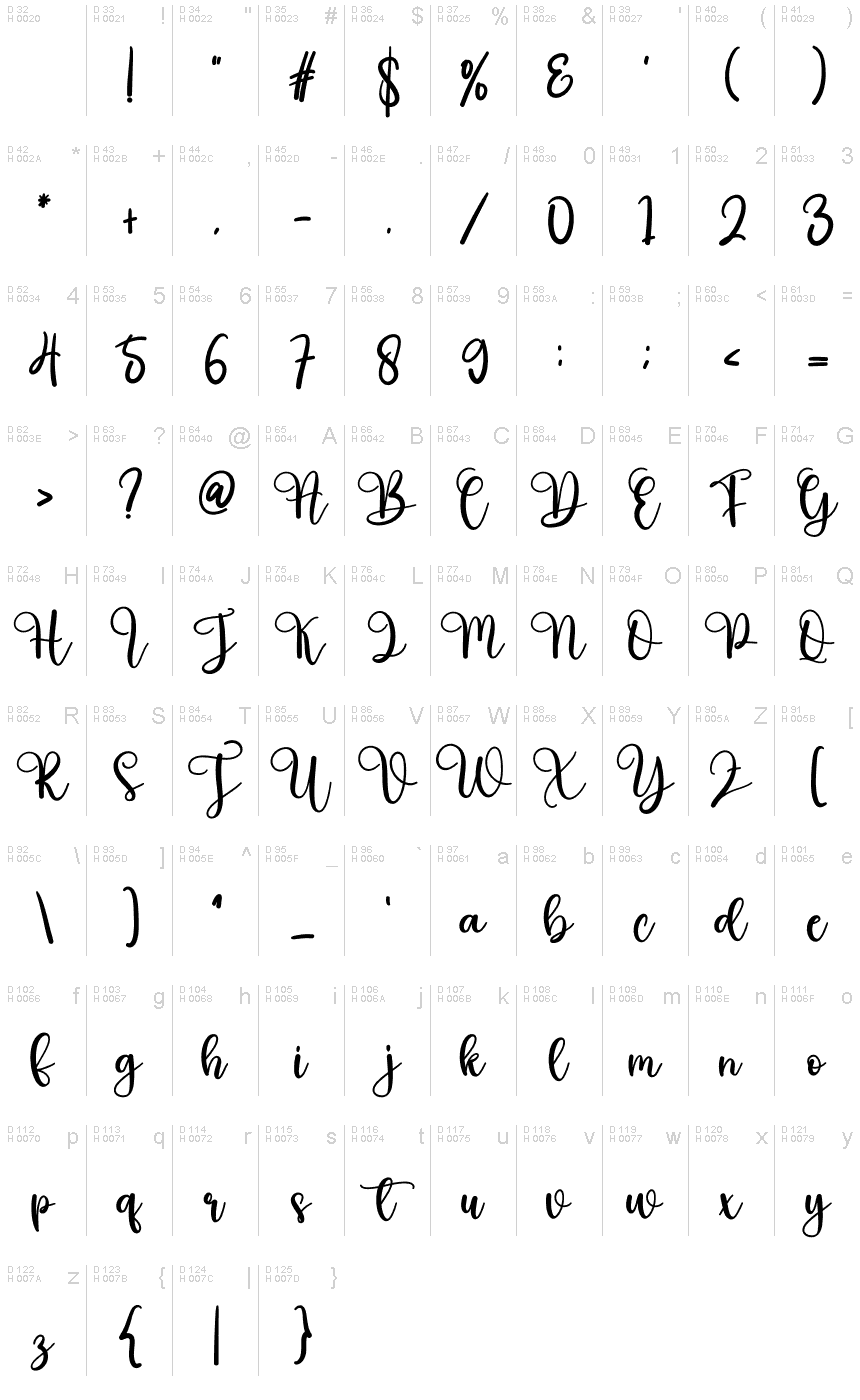
Greeting
Greeting, the new semi-light calligraphy font by scratchones, is the perfect addition to any project that requires a touch of elegance and sophistication. With its fluid strokes and graceful curves, this font exudes a sense of refinement that is ideal for wedding invitations, luxury brand logos, or any other design project that calls for a touch of class. Its semi-light weight allows for easy readability while maintaining its delicate appearance. Whether you're creating a website or designing a brochure, Greeting will elevate your work to the next level with its timeless charm and beauty.
the latest style letters are perfect for wall displays, wedding invitations, social media post logos,
advertisements, product packaging, product designs, labels, photography, watermarks, invitations, stationery,
and any project that requires taste handwriting.
the latest style letters are perfect for wall displays, wedding invitations, social media post logos,
advertisements, product packaging, product designs, labels, photography, watermarks, invitations, stationery,
and any project that requires taste handwriting.